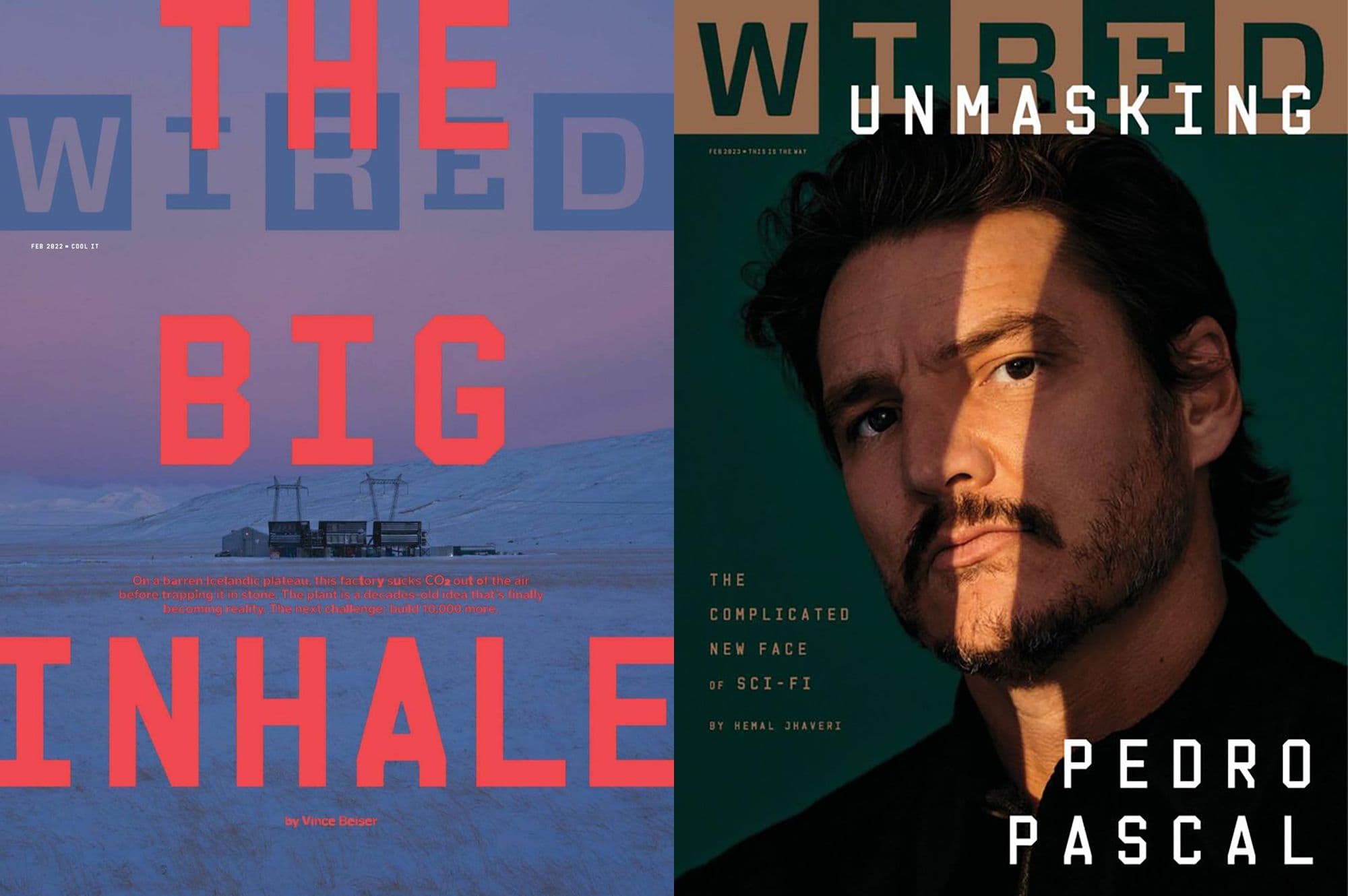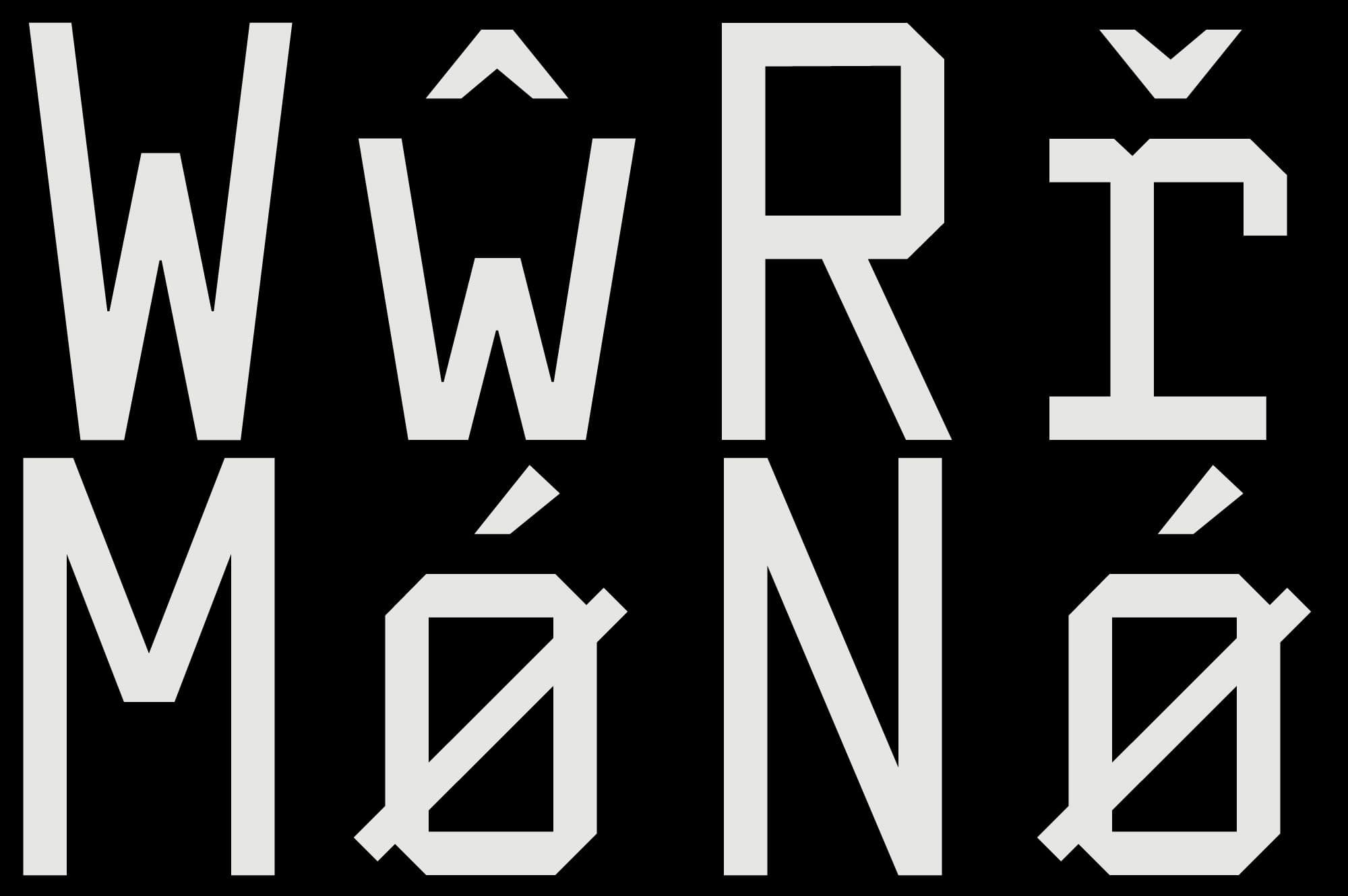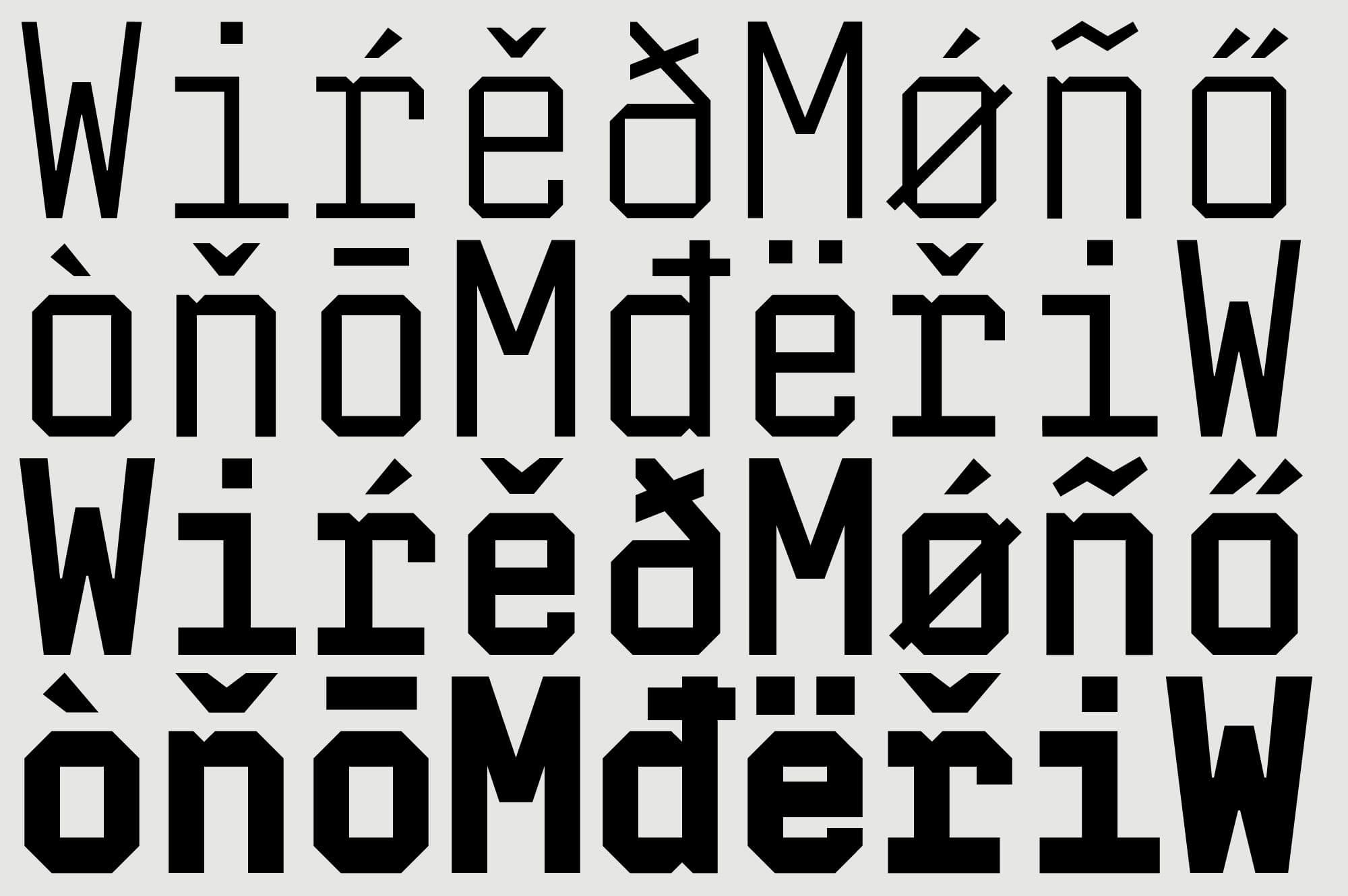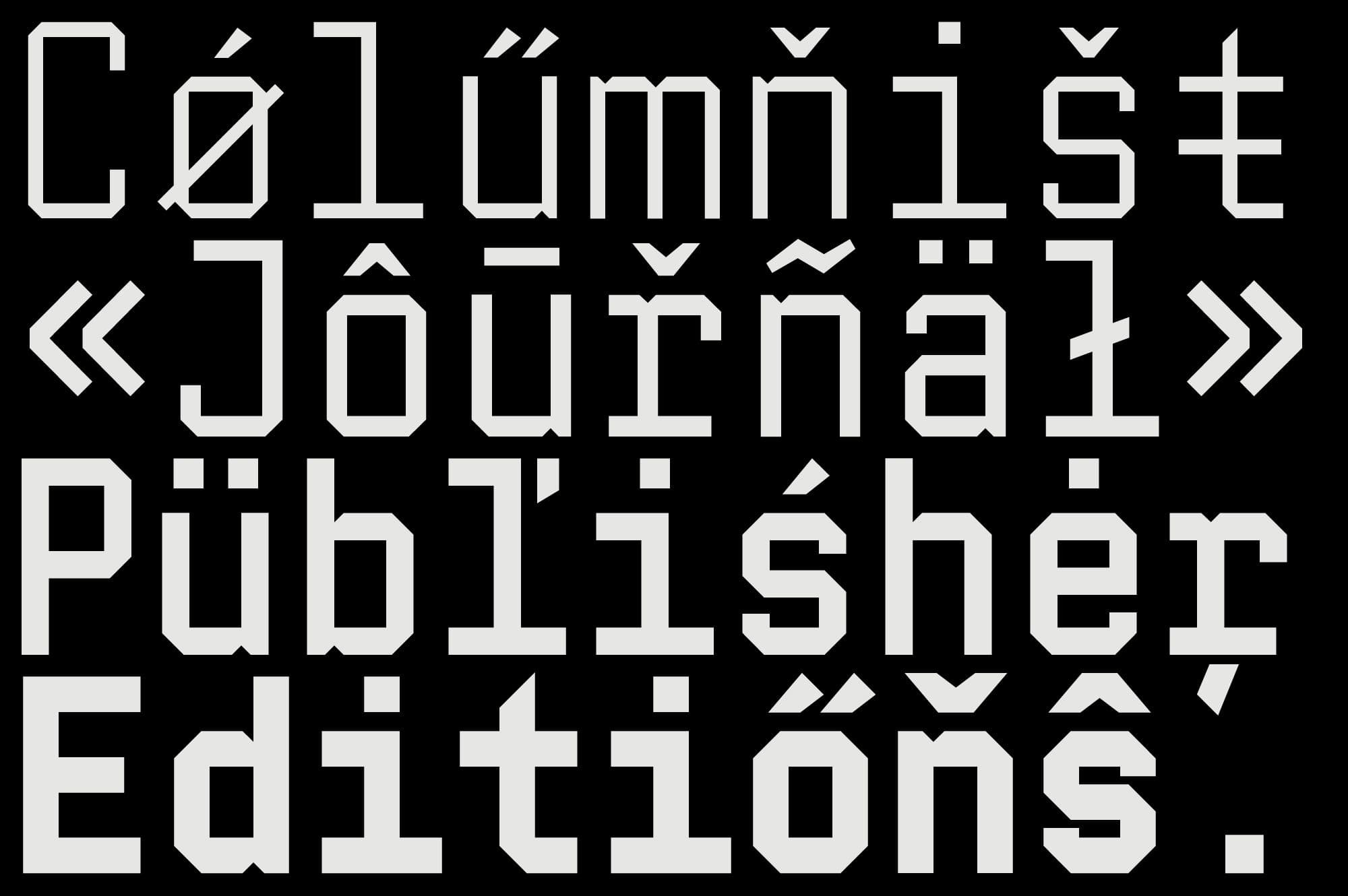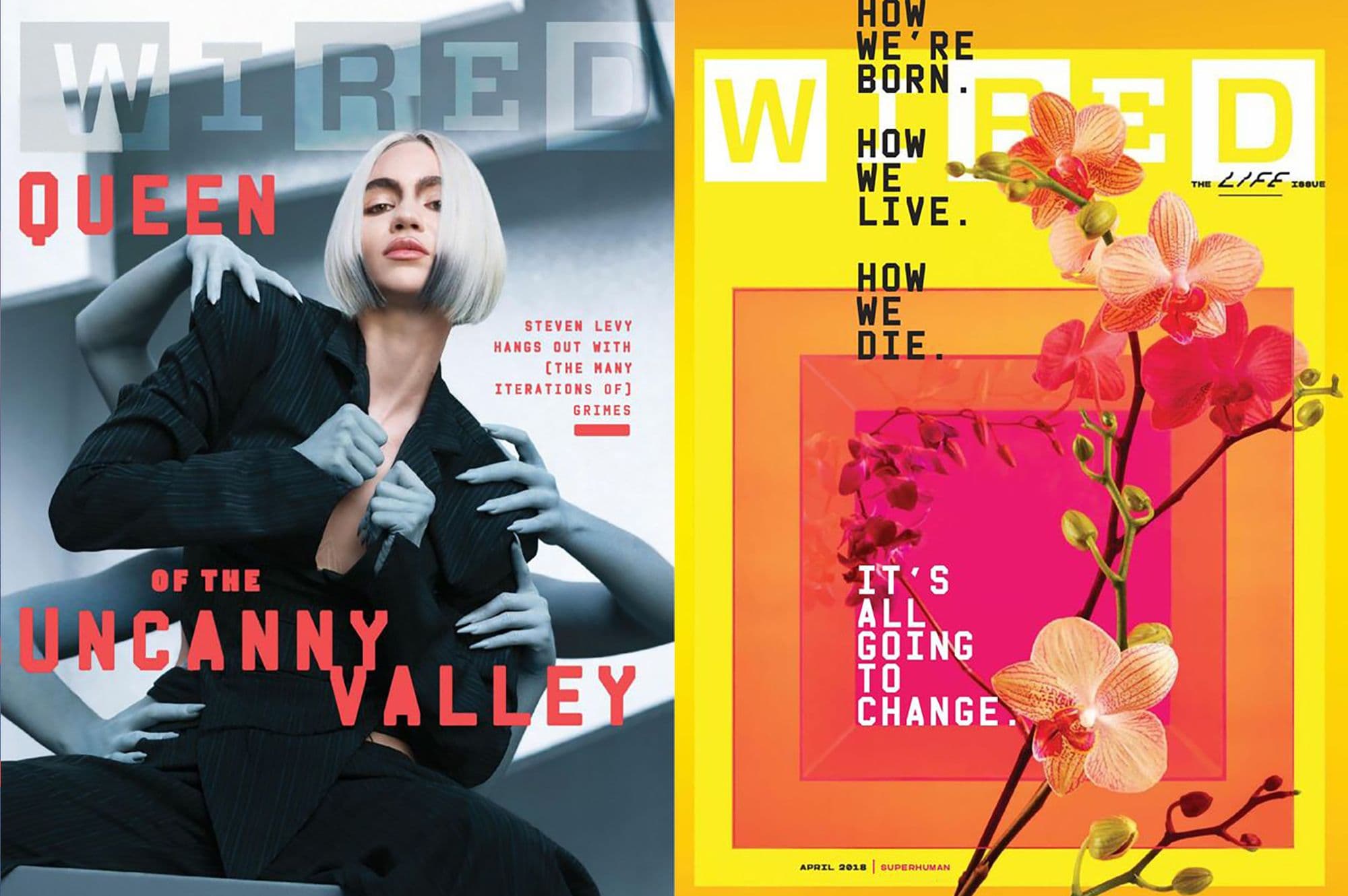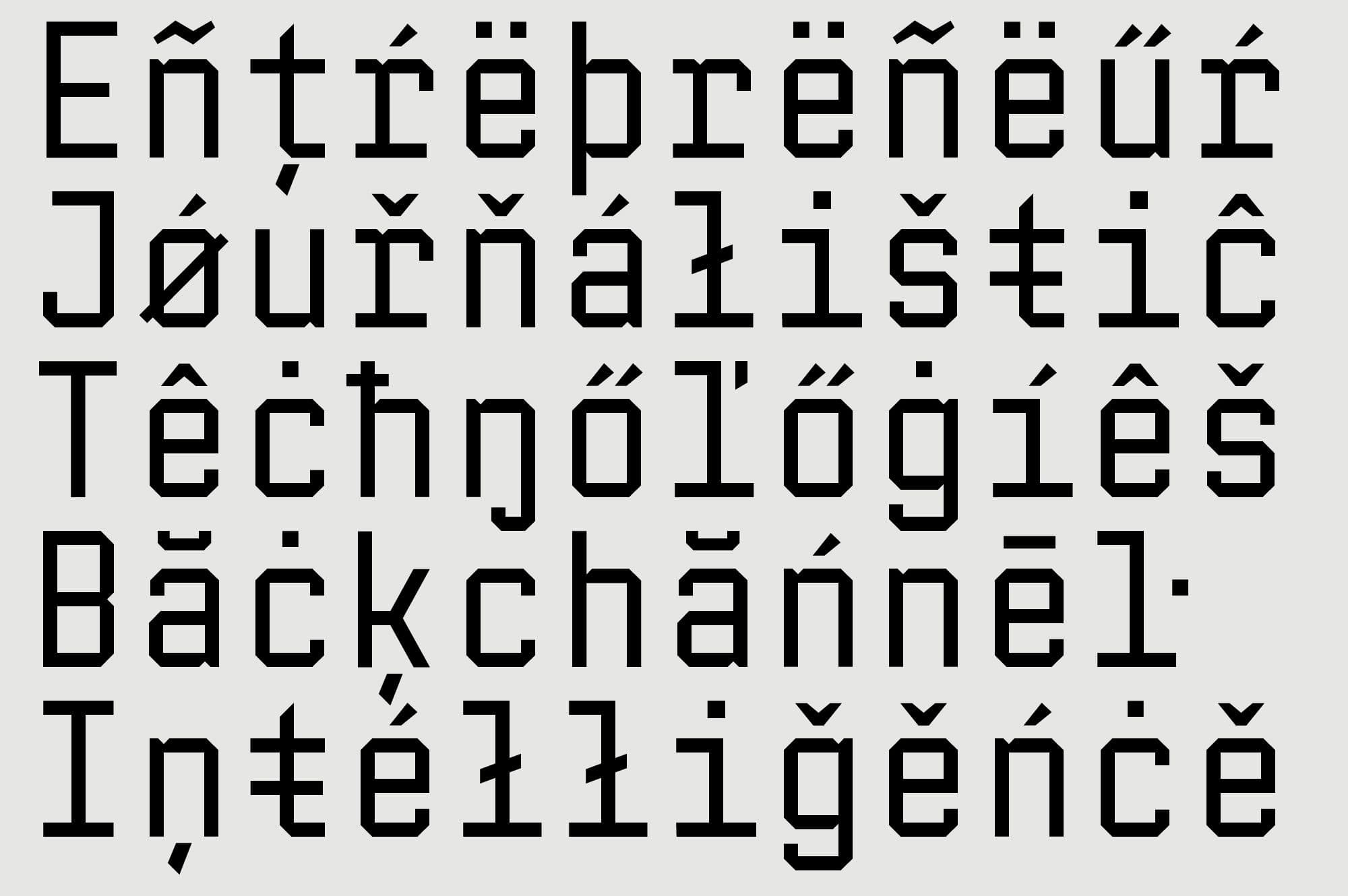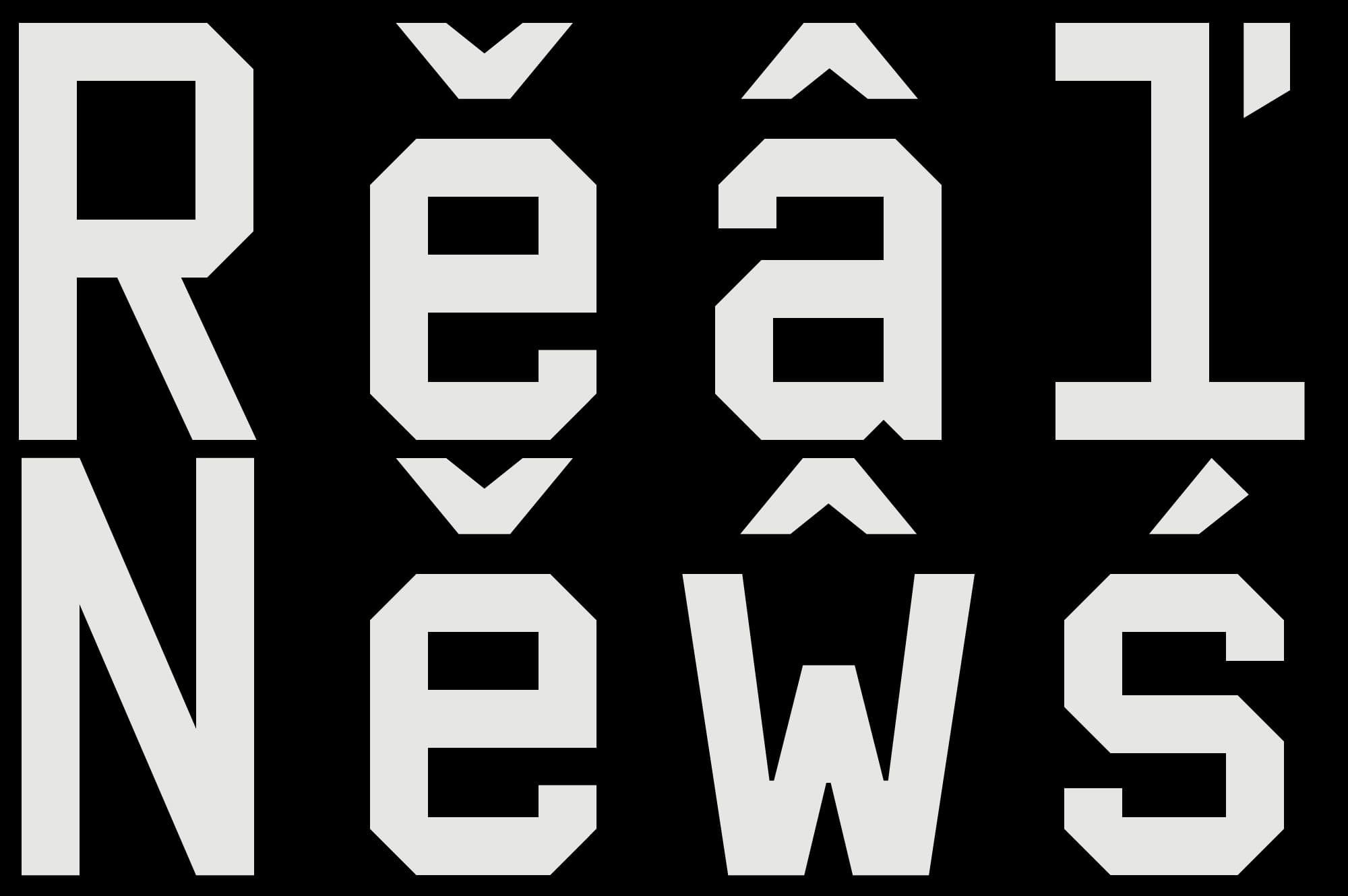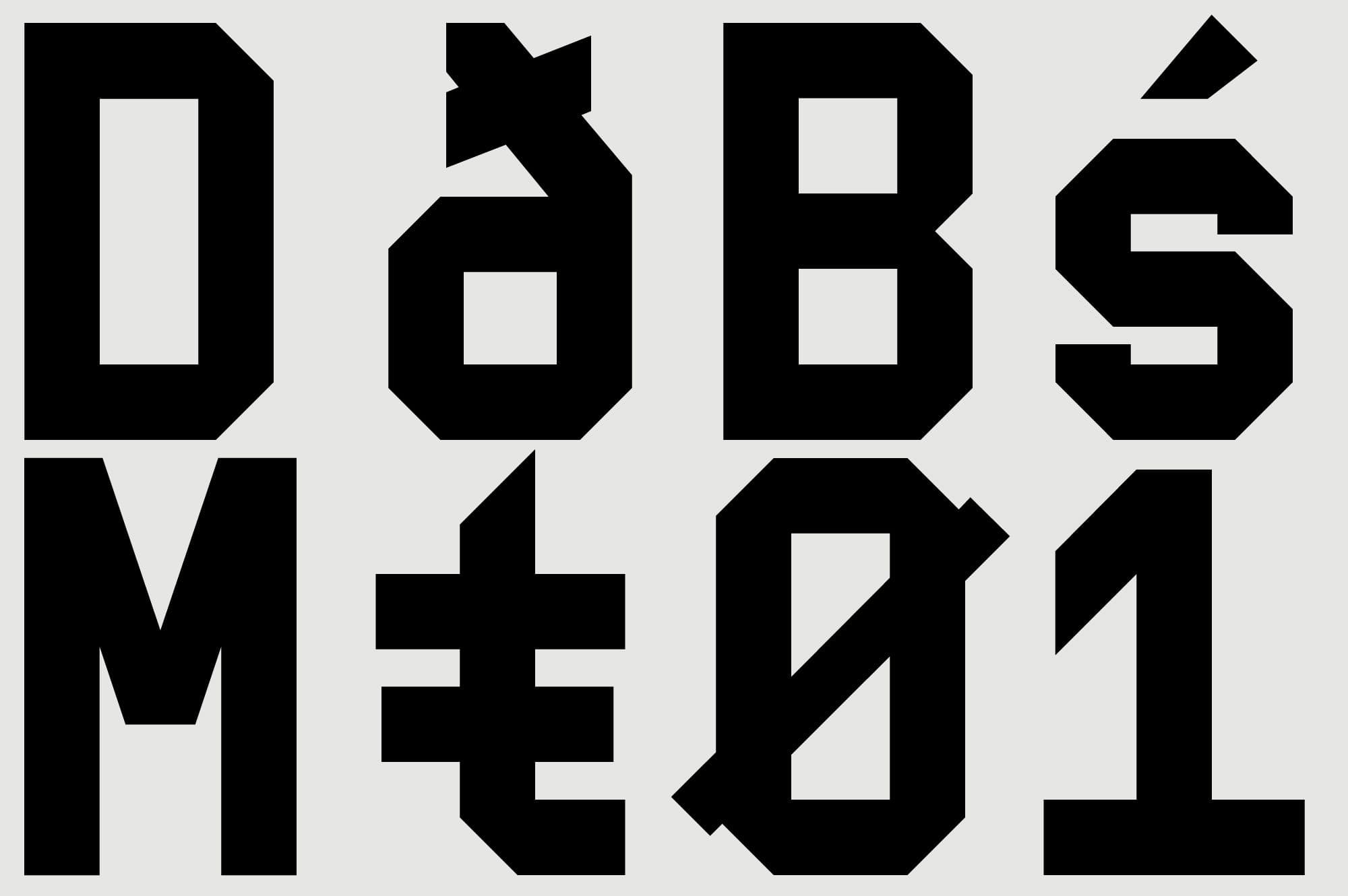
Wired Mono is a bespoke version of Airport Mono font designed at Think Work Observe, a monospaced sans-serif typeface inspired by flight signage, designed in four weights (Thin, Light, Regular, Bold) for Wired Magazine USA between September 2017 and March 2018. Wired Mono has appeared for the first time in April 2018 (Life Issue).